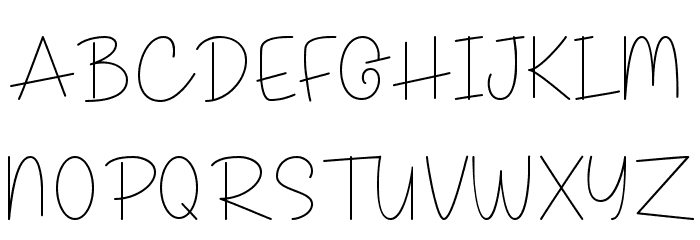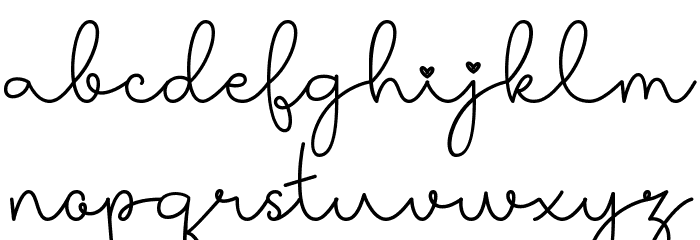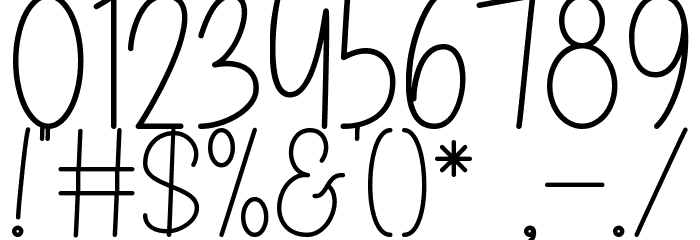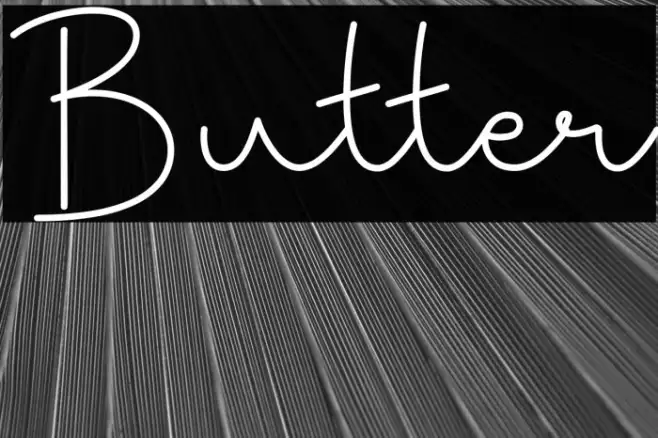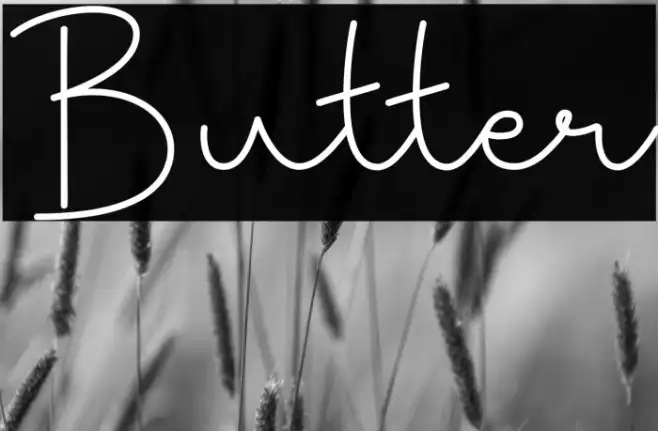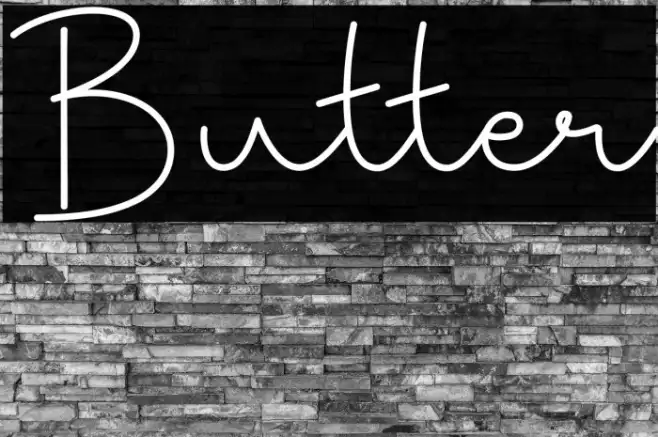
Butter Font
A playful and whimsical handwritten font with a casual and friendly appearance. It features heart-shaped details on some characters, adding a unique and decorative touch.
Playful handwritten font with decorative heart details.
- Font: Butter
- Proposed Projects: Greeting cards, invitations, playful branding.
- Category: Handwritten
- Use Case: Logos, Headlines, Invitations